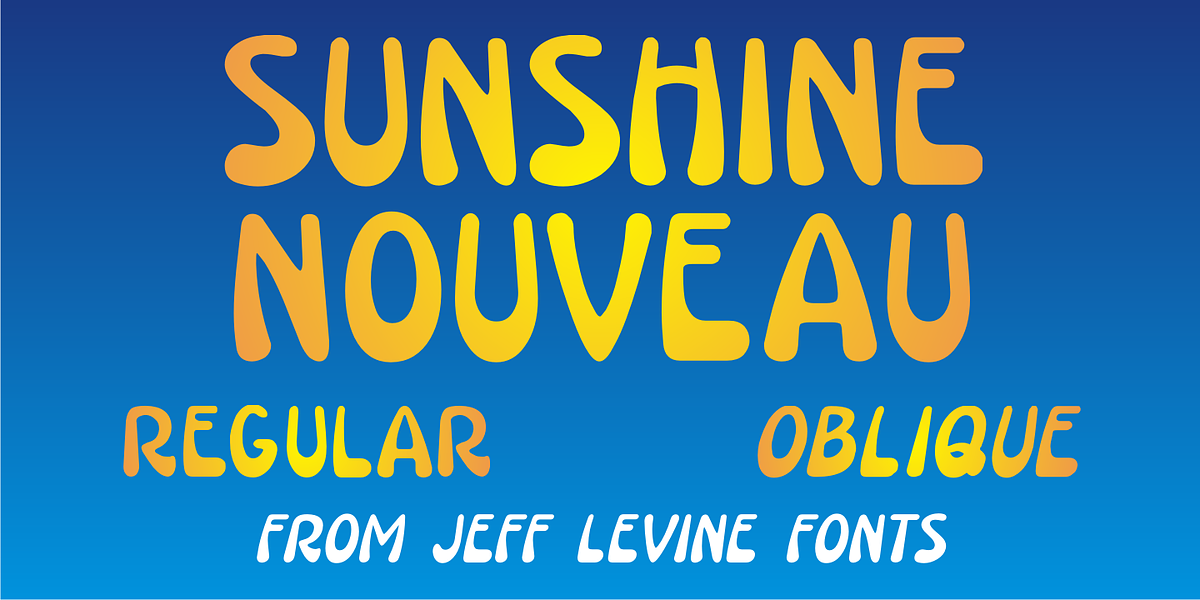
Sunshine Nouveau JNL
Hand lettering done in a playfully distinct Art Nouveau style comprised the title on the cover of the 1916 sheet music for the song “Your Mother is Your Best Friend After All”.
This served at the working model for Sunshine Nouveau JNL, which is available in both regular and oblique versions.